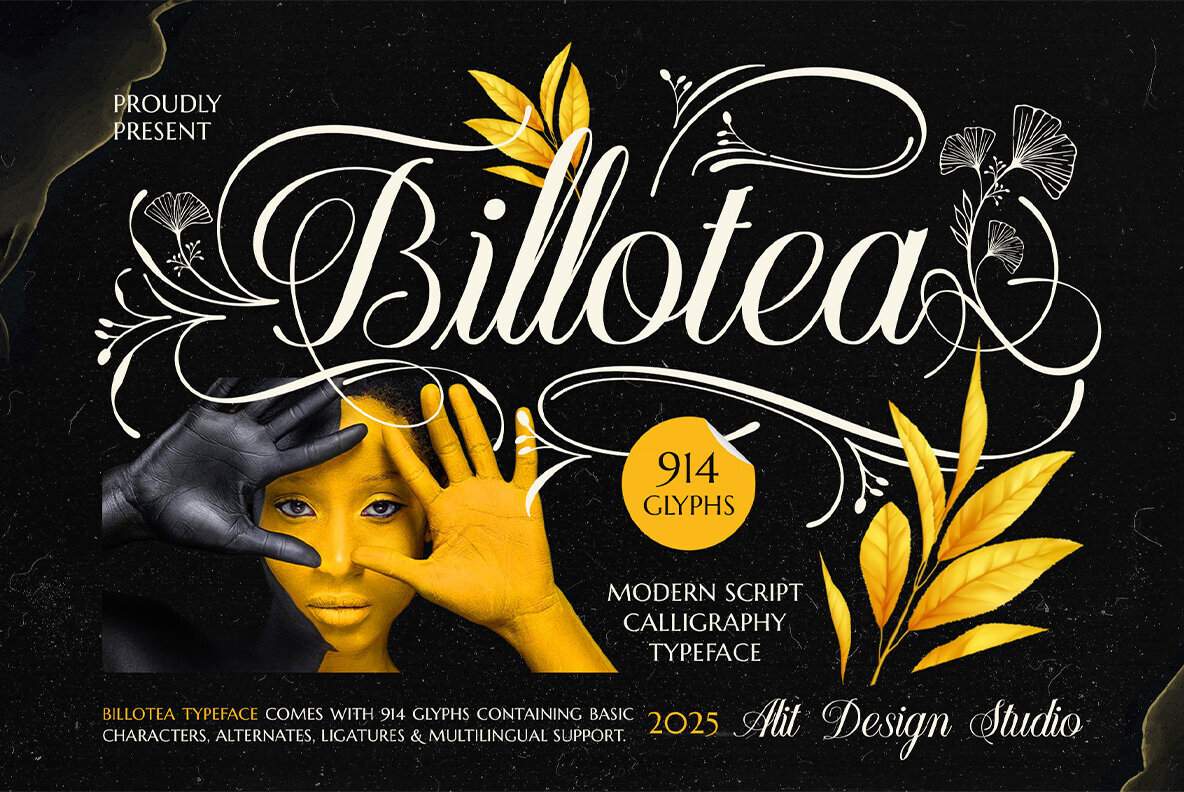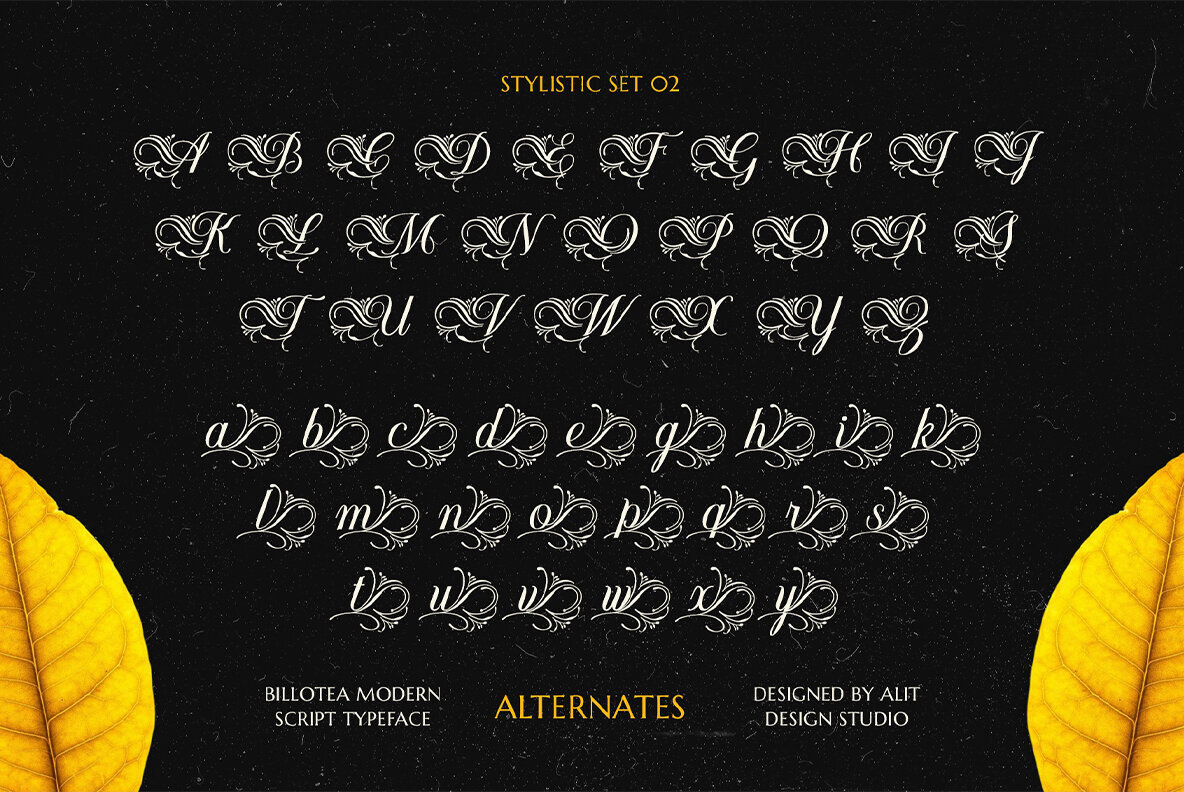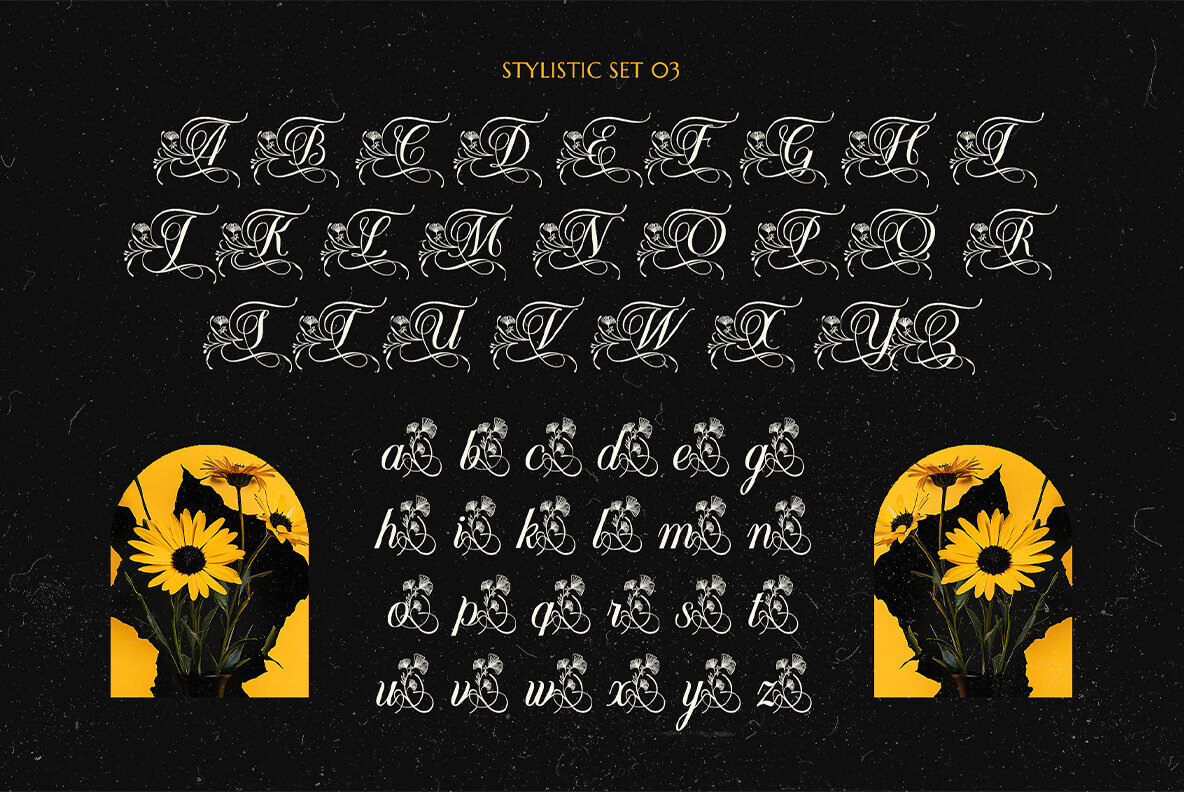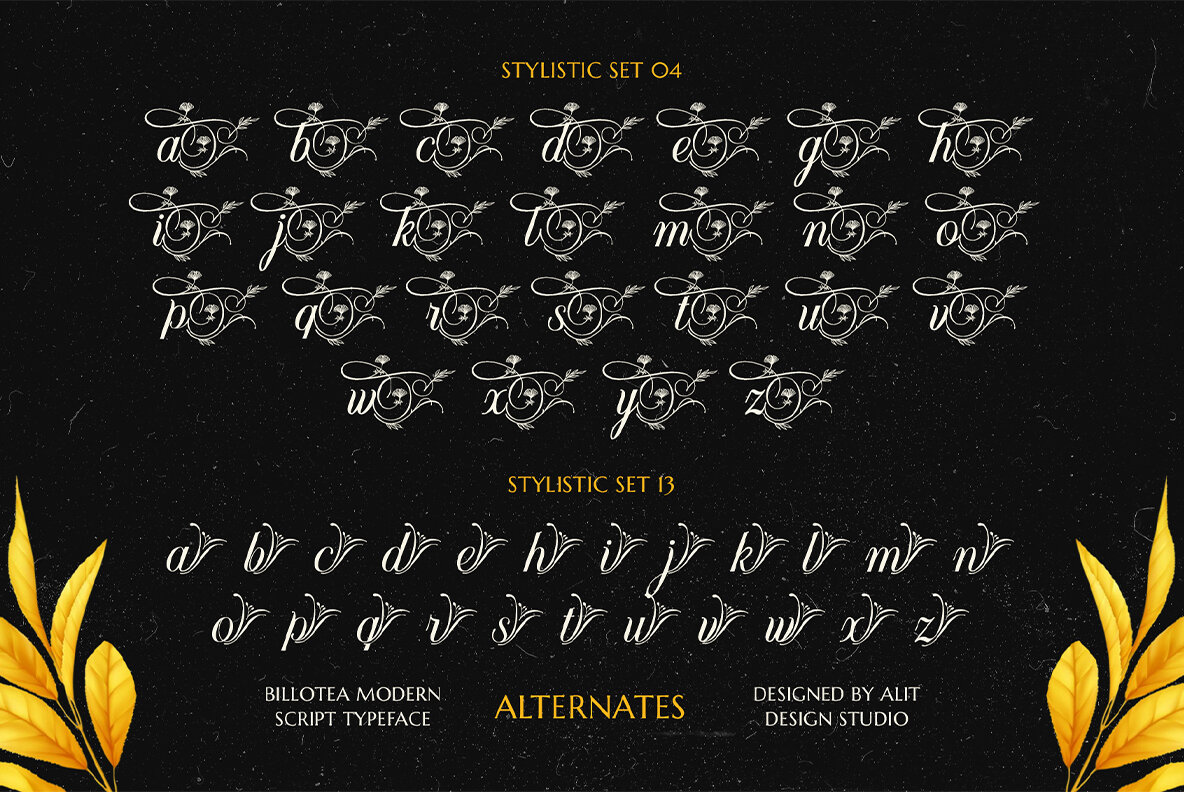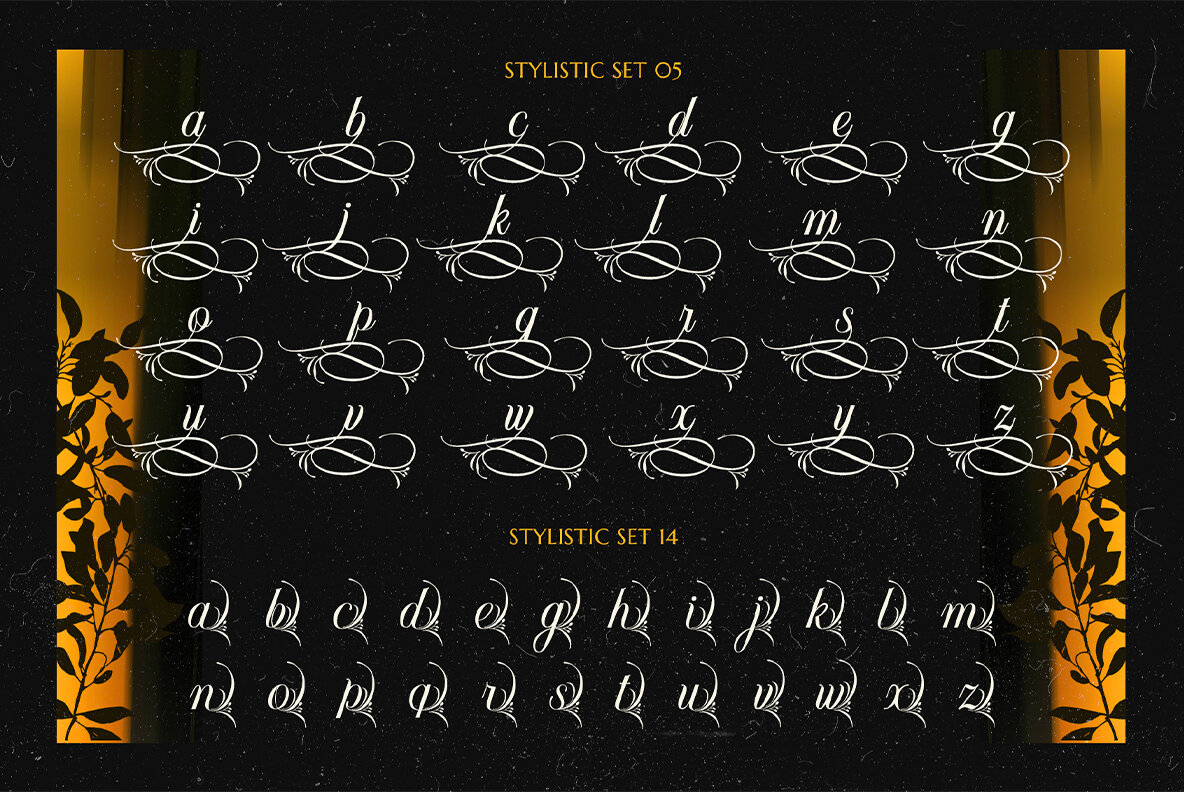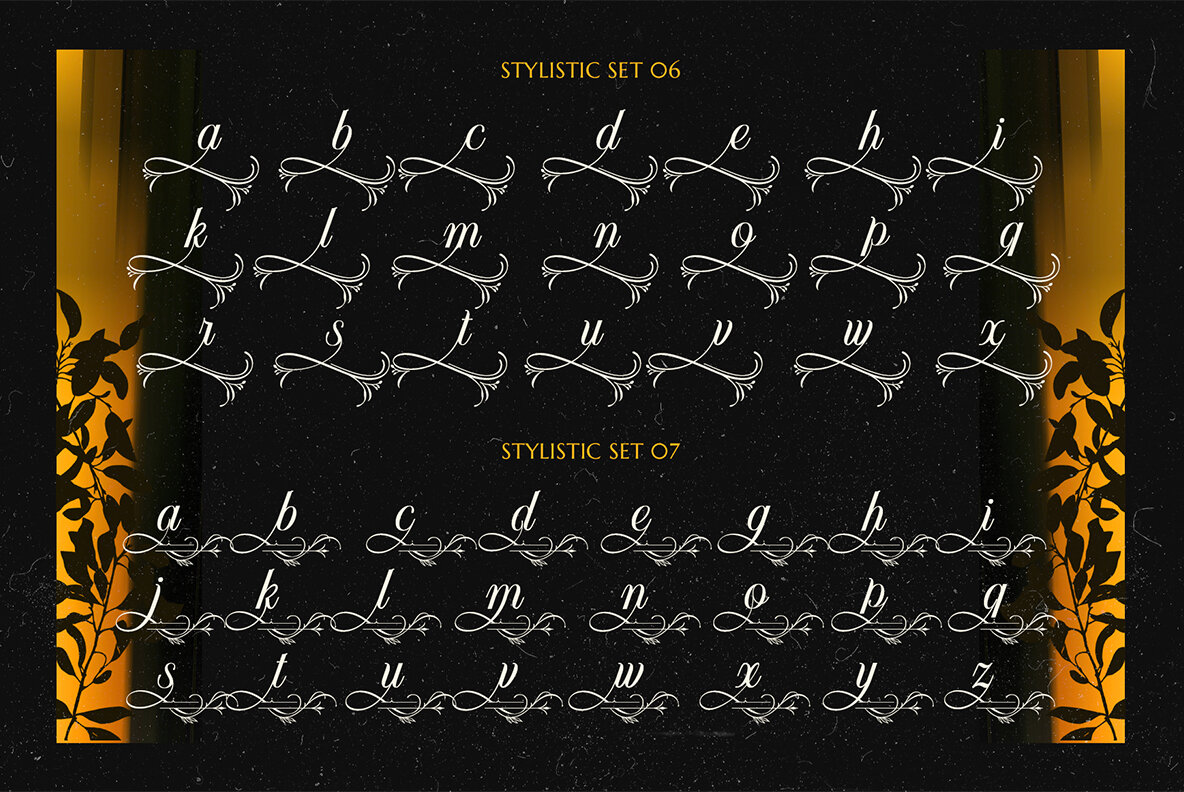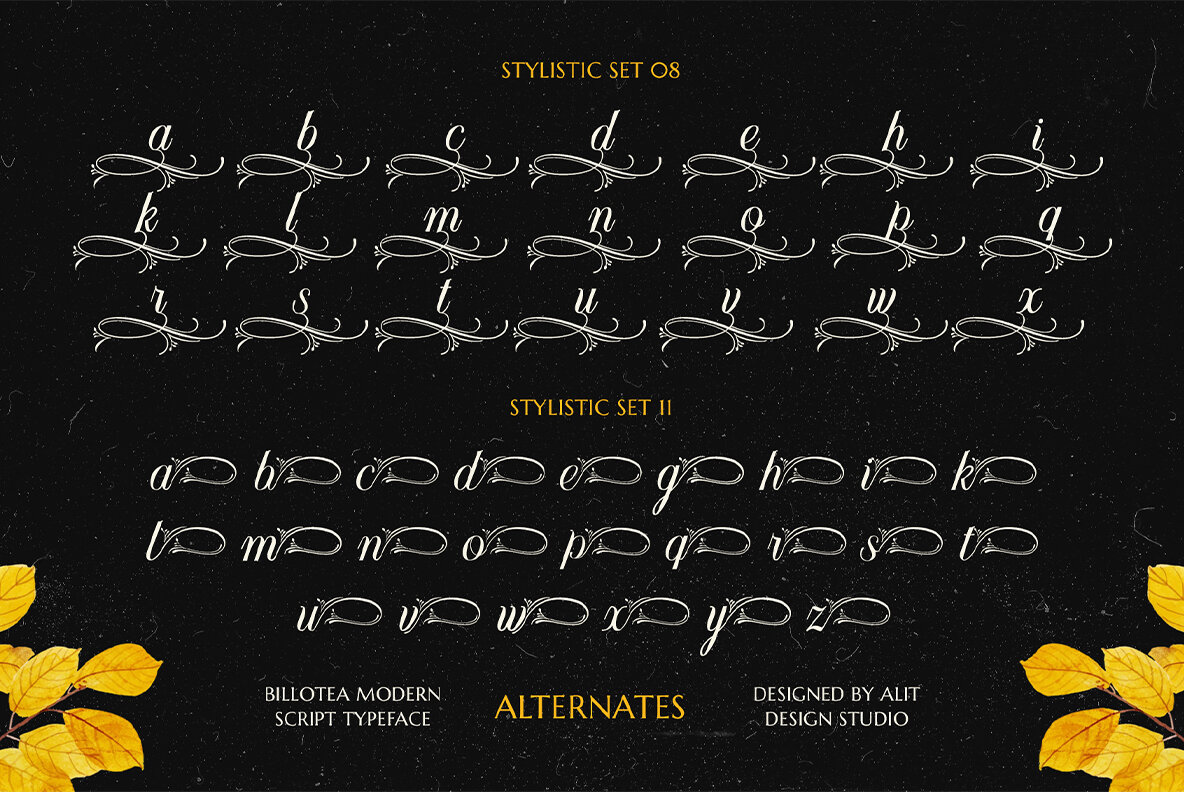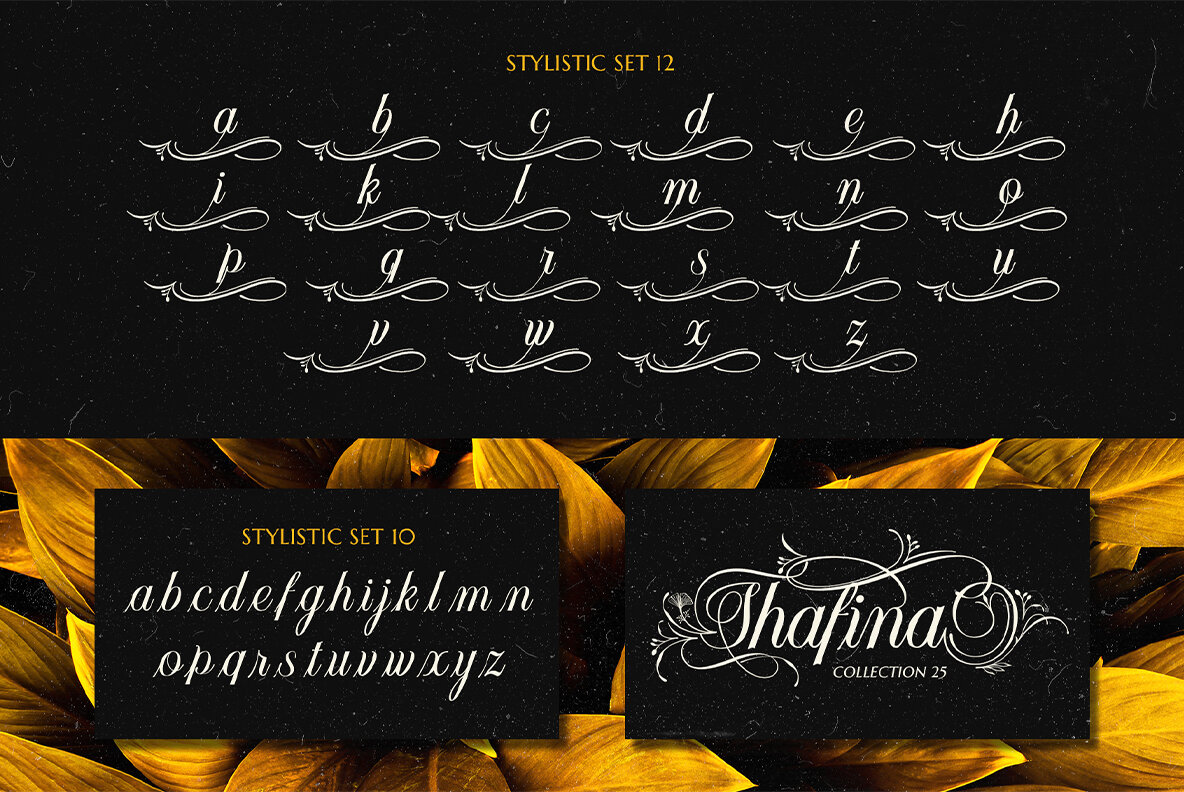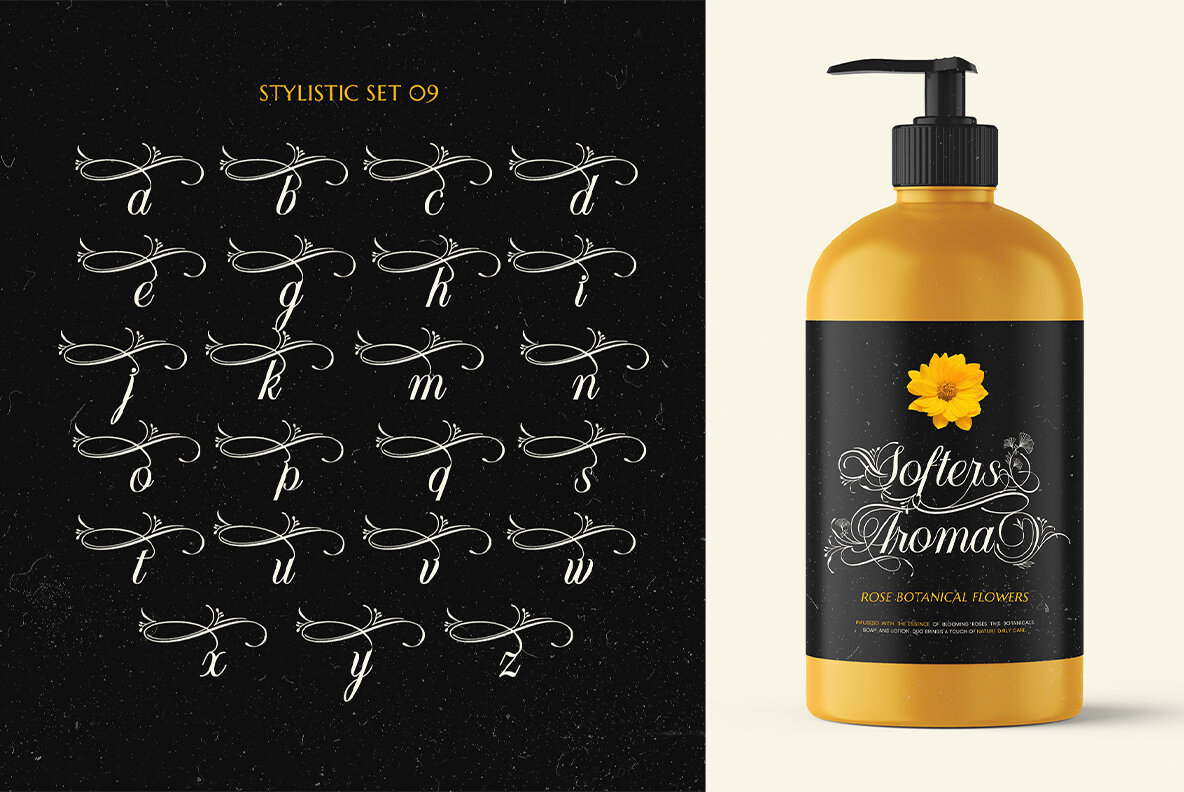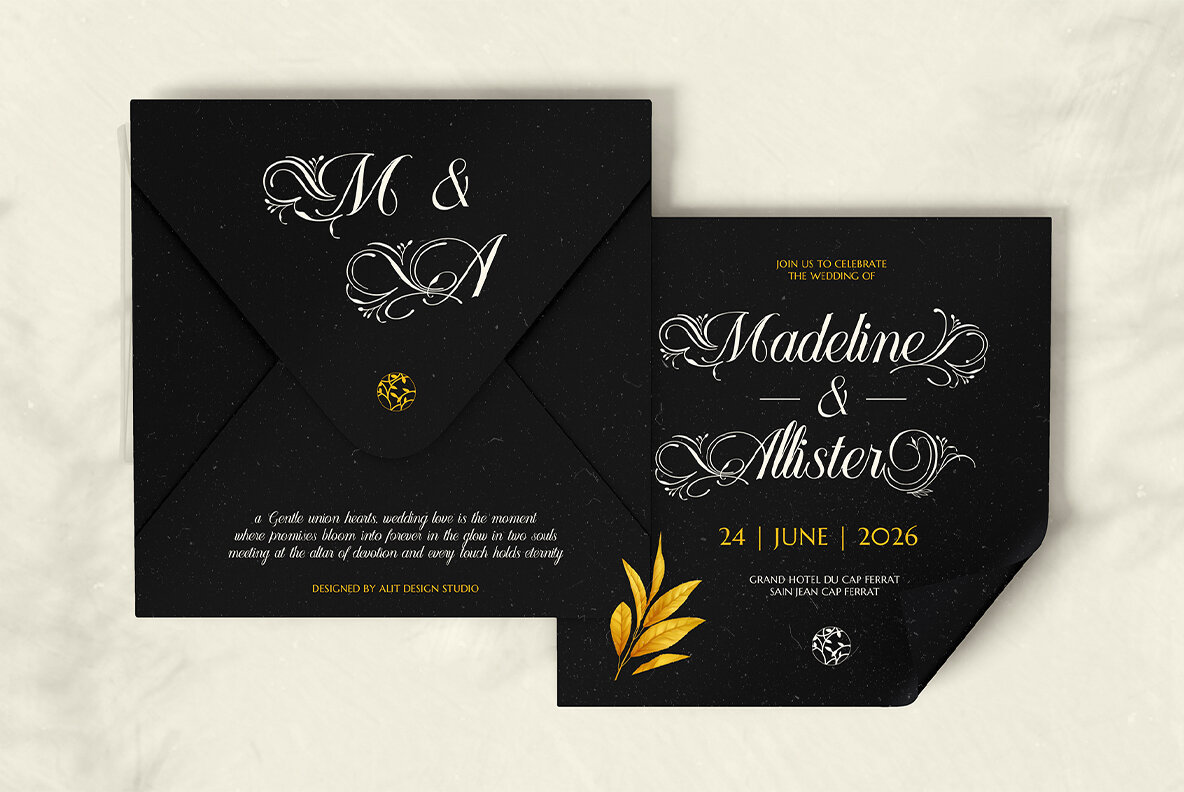
Billotea Font
Billotea Regular
Billotea Typeface is a masterpiece that seamlessly blends the sophistication of classic calligraphy with the enchanting allure of natural ornaments. Its design embodies more than mere letters on a page—it is a work of art that introduces an organic luxury to your creative endeavors. The Billotea Typeface is characterized by its high degree of precision, where each letter is intricately adorned with abstract floral tendrils inspired by the delicate ginkgo leaves and wild flora. This unique harmony between ornamental details and calligraphic brushstrokes results in a typeface that is as memorable as it is visually pleasing. The Billotea Typeface is your go-to for instilling natural beauty and timeless elegance into your work, perfect for those design projects that demand a touch of sophisticated luxury.Billotea Typeface: An Elegant Dance of Calligraphy and Nature
Precision and Design